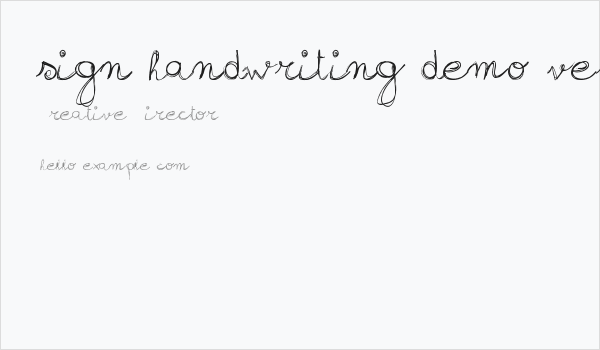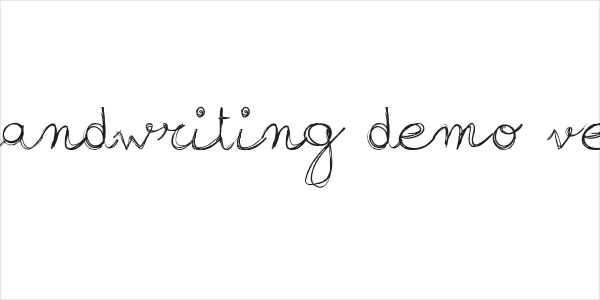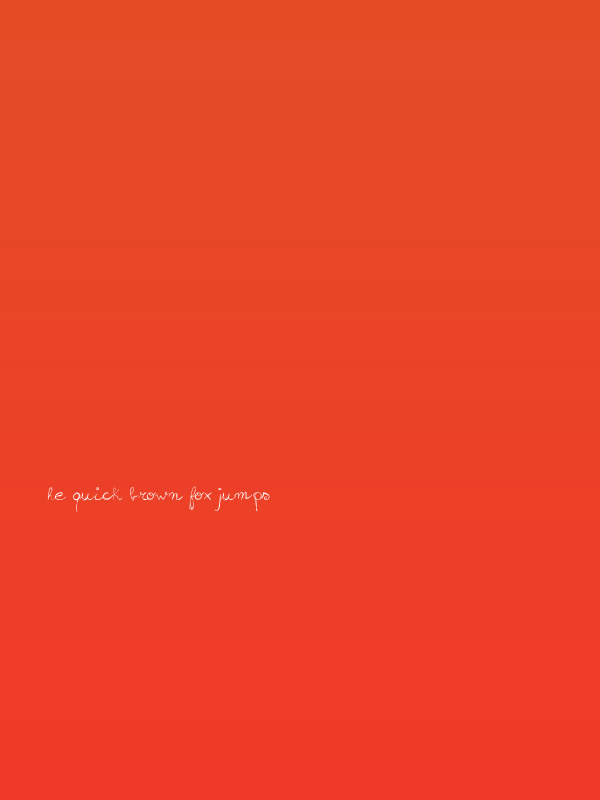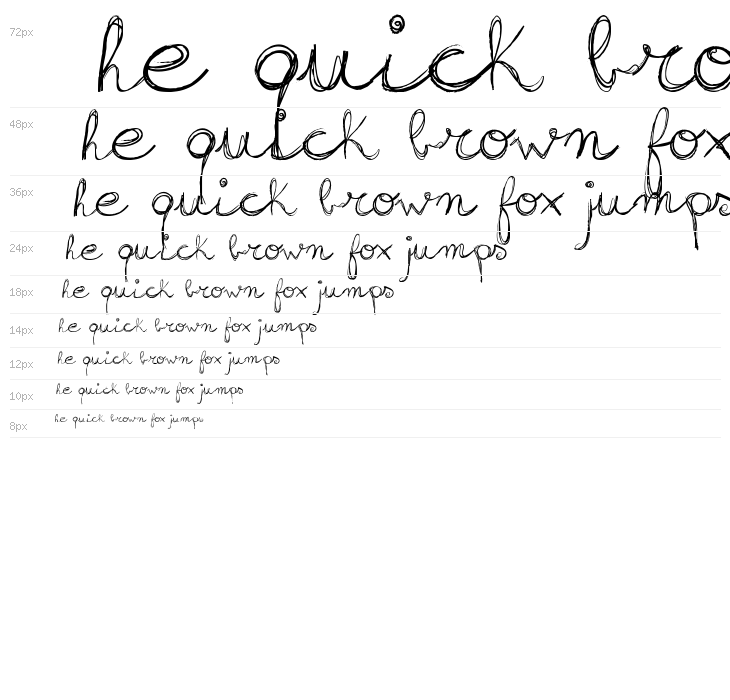
sign-handwriting_demo-version Font
sign-handwriting_demo-version Description
This font exhibits a playful and artistic handwriting style, characterized by its flowing, cursive letters that mimic the natural strokes of a pen. The letters are interconnected, with a whimsical flair that adds a personal touch to any text. The strokes vary in thickness, creating a dynamic and lively appearance. The font captures the essence of casual, handwritten notes, making it ideal for projects that require a personal or informal feel. Its unique style is perfect for creative designs, invitations, and artistic projects where a touch of individuality is desired.
| Use Case | Logos, Invitations, Creative projects |
| Proposed Projects | Ideal for invitations, greeting cards, personal notes, and creative design projects. |